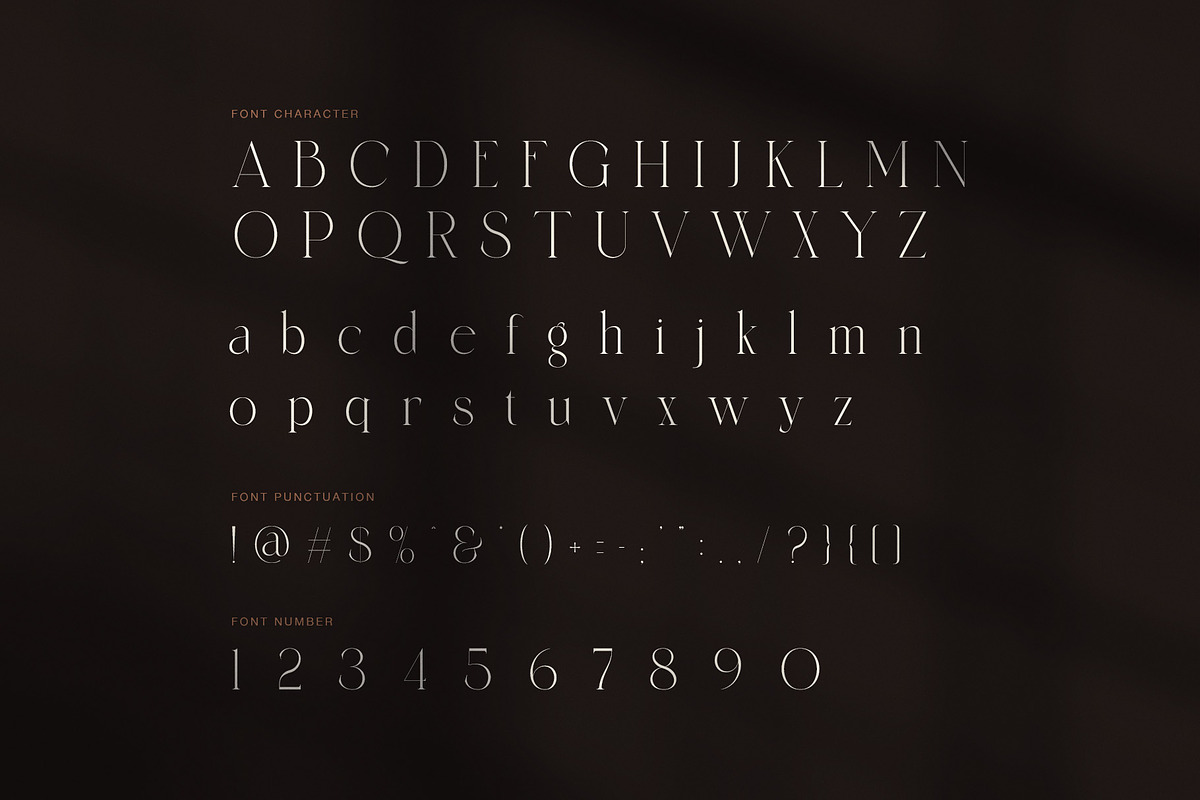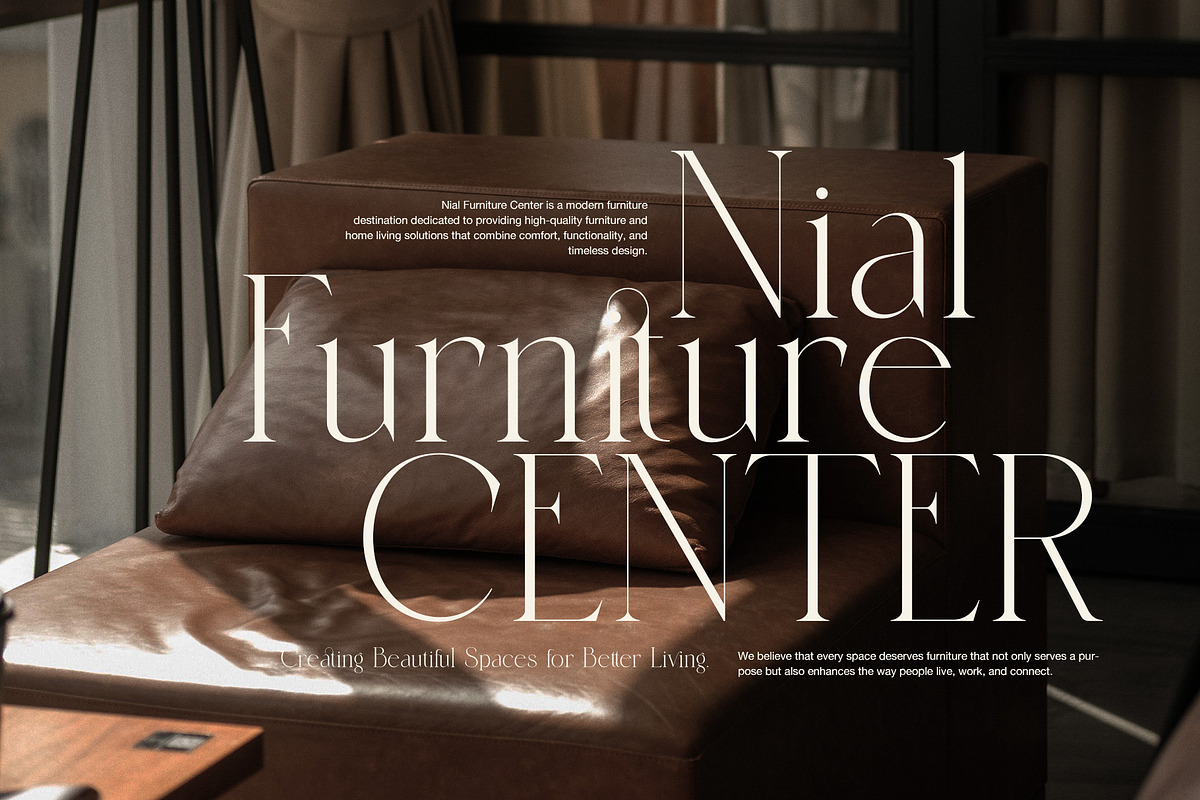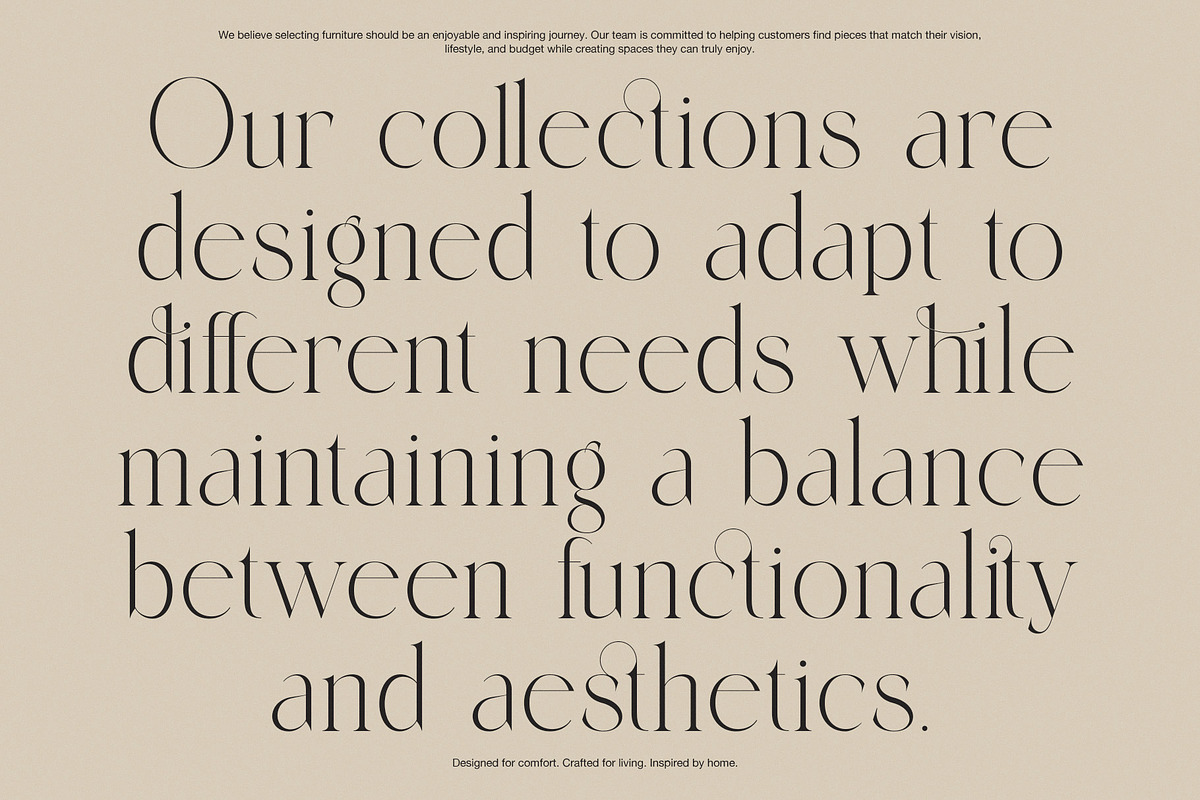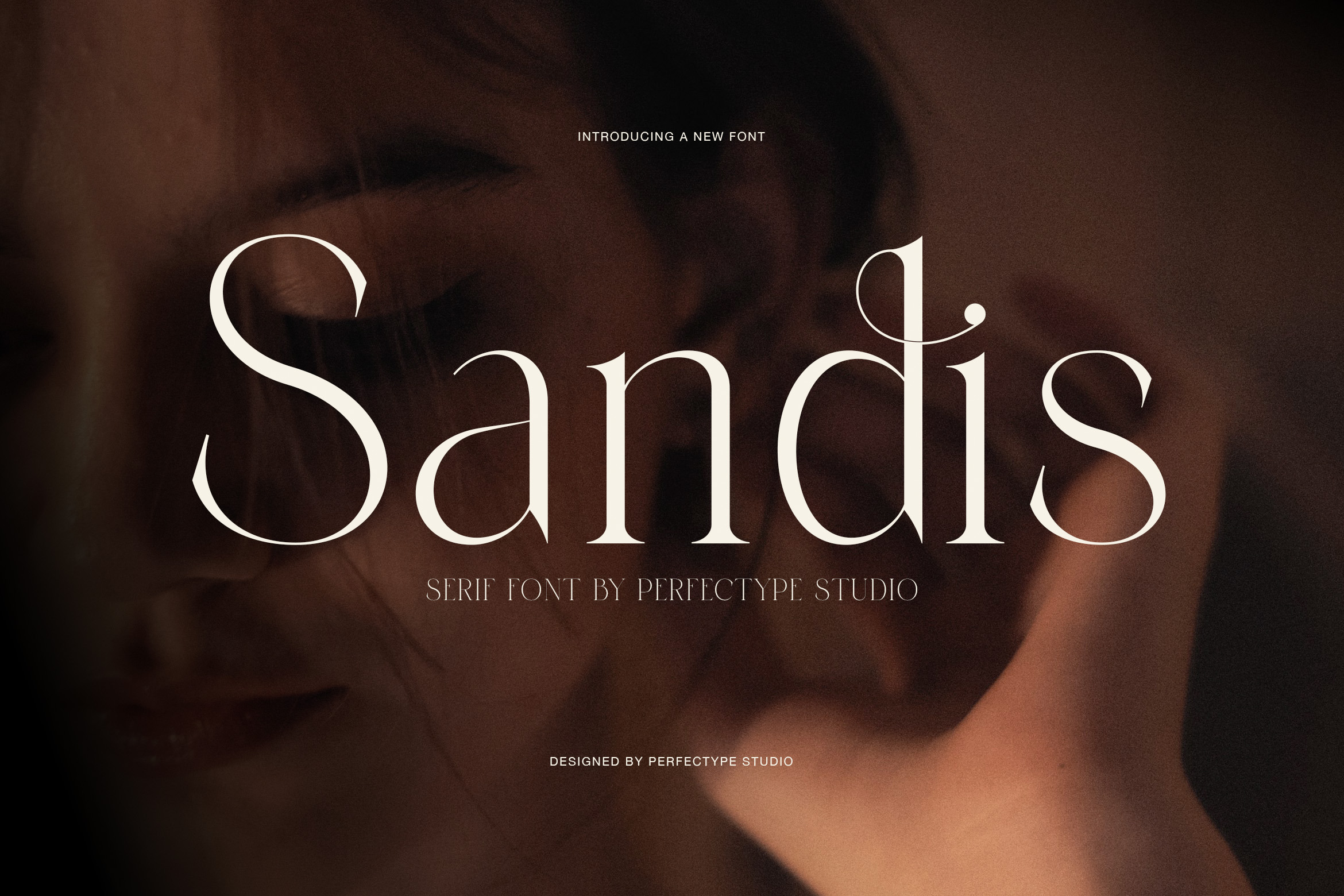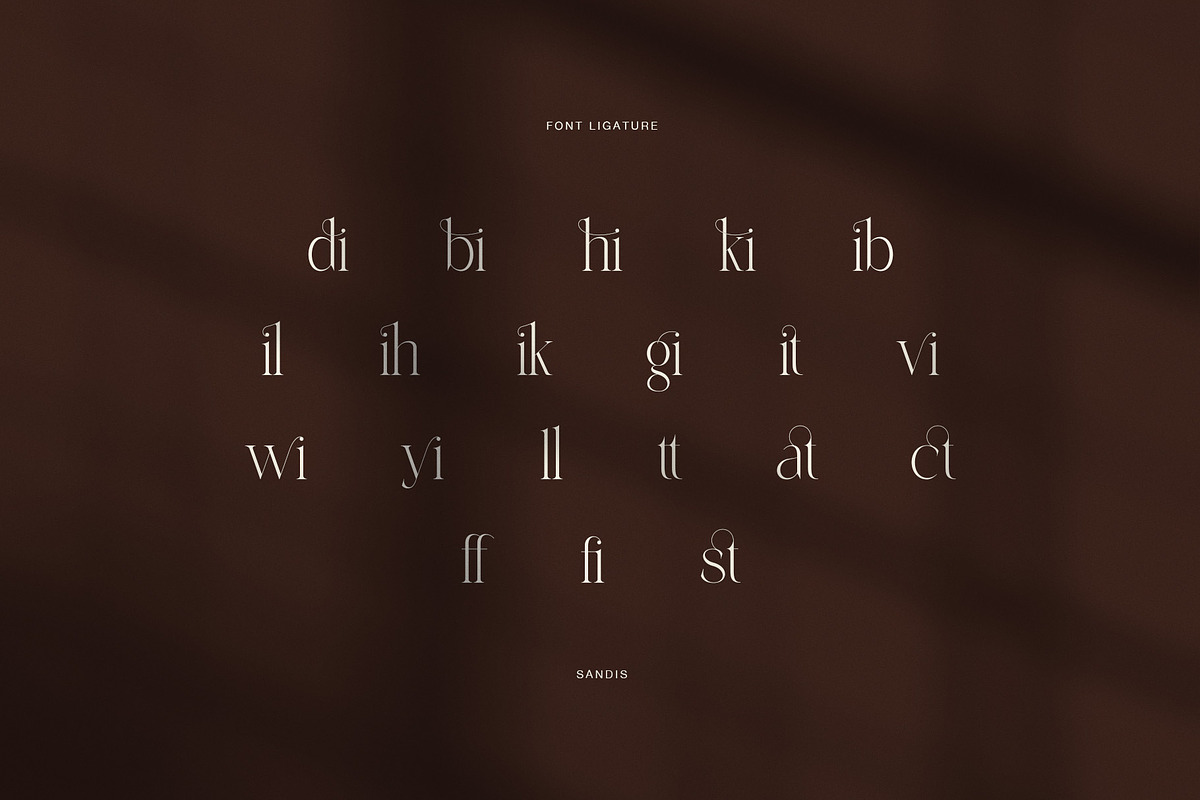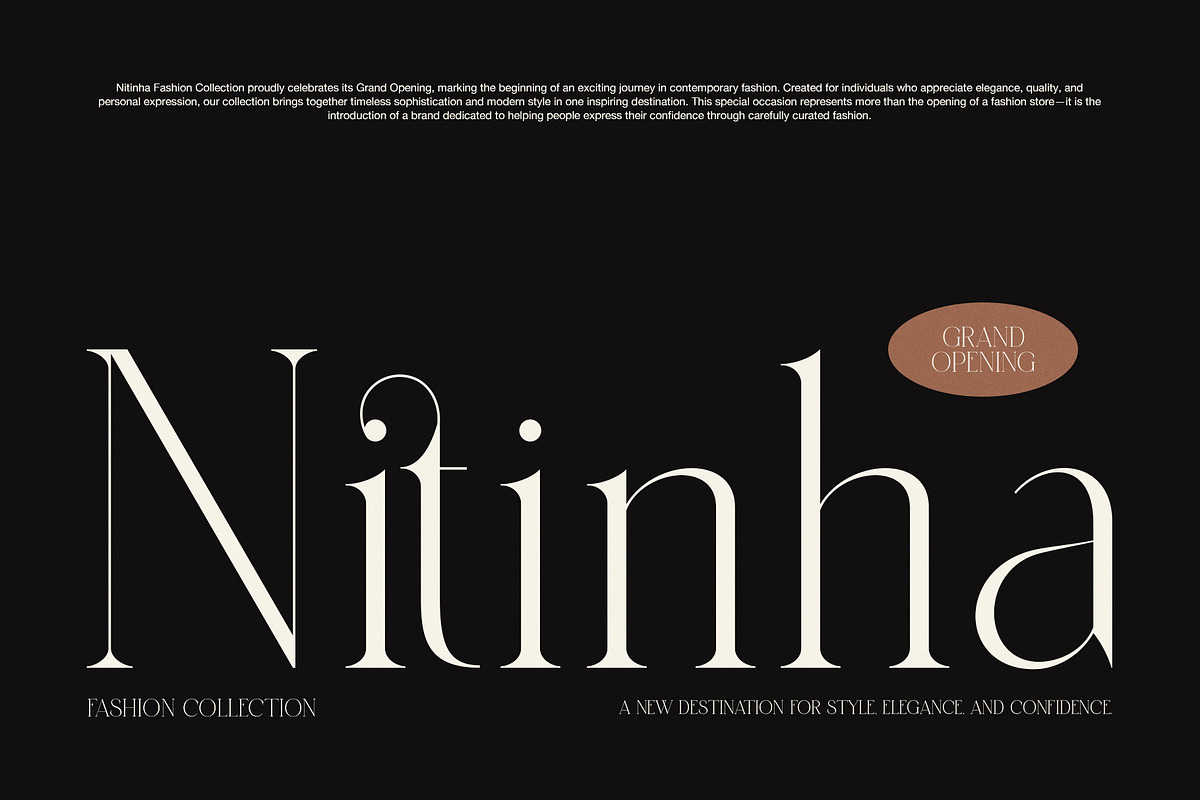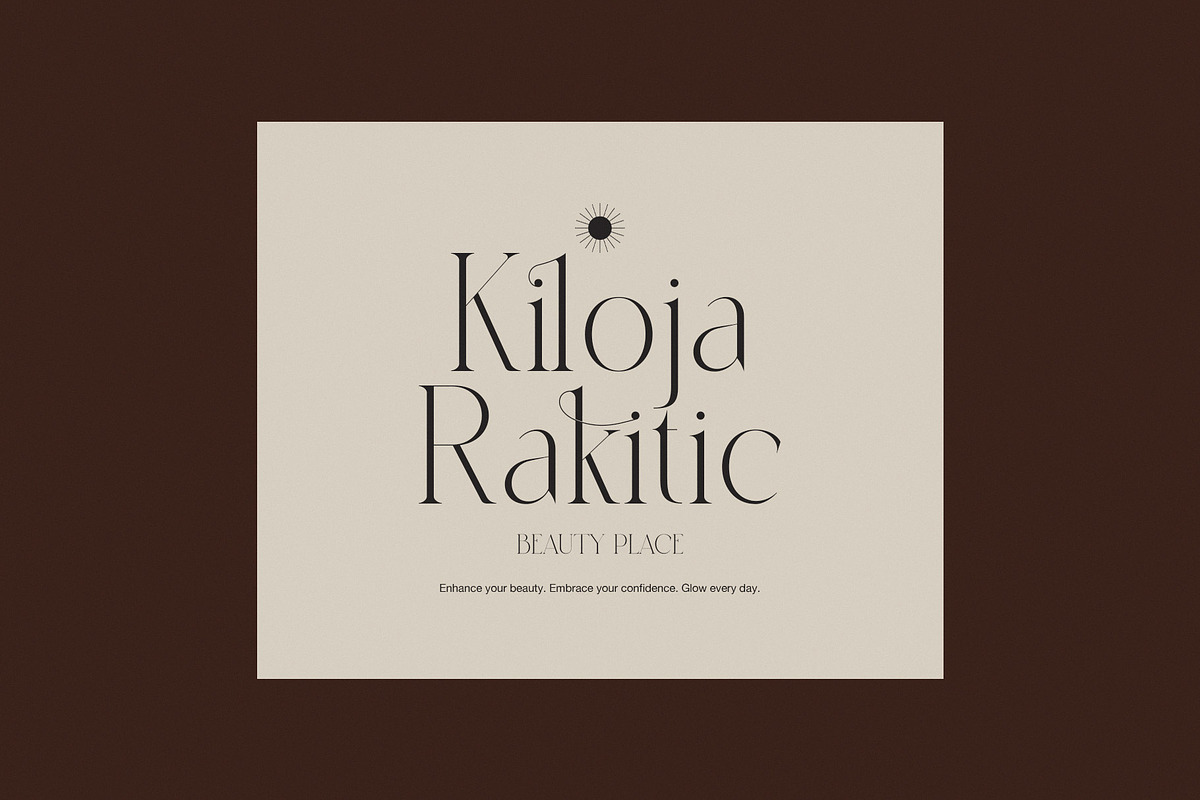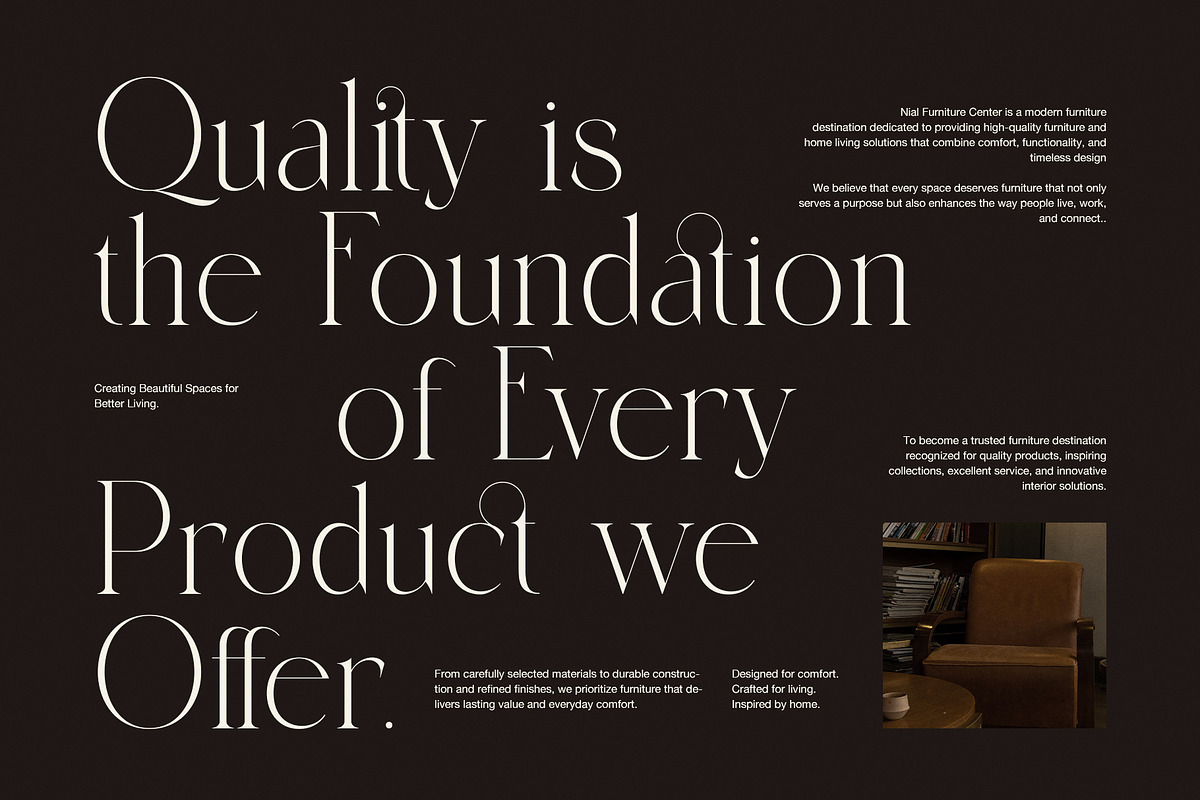
Sandis Elegant Serif Font
Sandis is an elegant high contrast serif font made for fashion, beauty, and refined visual identities. Its dramatic contrast between thick strokes and fine hairlines creates a graceful editorial look. At the same time, its tall proportions give headlines a polished, premium feel.
Sandis has a delicate serif structure with strong thick-and-thin contrast. As a result, large words feel expressive without becoming heavy. In addition, slim hairlines add a light touch, while stronger vertical strokes give the letters enough presence for display use.
Moreover, its refined curves and sharp serif details create a modern fashion mood. Likewise, the overall style feels sophisticated, feminine, and artistic. Therefore, it is a natural choice for brands that want a clean luxury image.
Distinctive Ligatures
A key feature of Sandis is its set of decorative ligatures. These alternate letter connections add a custom feel to selected combinations. As a result, designers can create more memorable typography with less manual editing.
Furthermore, Sandis can turn a simple name or headline into a distinctive visual statement. For example, the ligatures are useful for logos, fashion titles, beauty names, and editorial compositions where small details matter.
Perfect for Fashion Branding
Sandis is designed to shine at display sizes. Therefore, its elegant shapes work especially well in:
Fashion logos and wordmarks
Luxury branding and identity
Beauty and skincare packaging
Editorial magazine covers
Fashion campaign headlines
Boutique branding
Wedding stationery
Photography portfolios
Website hero headlines
Product labels
Creative presentations
Editorial and Luxury Applications
Because of its refined contrast, Sandis pairs beautifully with spacious layouts, neutral colors, premium photography, and minimal compositions. Furthermore, its large display forms can create a strong focal point without extra decoration.
For supporting copy, pair Sandis with a clean sans serif to create clear contrast between expressive headlines and practical information. In addition, this approach works well across print and digital projects.
Sandis includes uppercase and lowercase characters, numbers, punctuation, and decorative ligatures. Also, its distinctive lowercase details give designers extra freedom when creating stylish typography.
Finally, whether you are building a fashion identity, beauty brand, magazine layout, invitation, or luxury campaign, Sandis brings a graceful, contemporary character to the design. Overall, its combination of high contrast, elegant serifs, and expressive ligatures makes it a versatile display typeface for modern creative work.